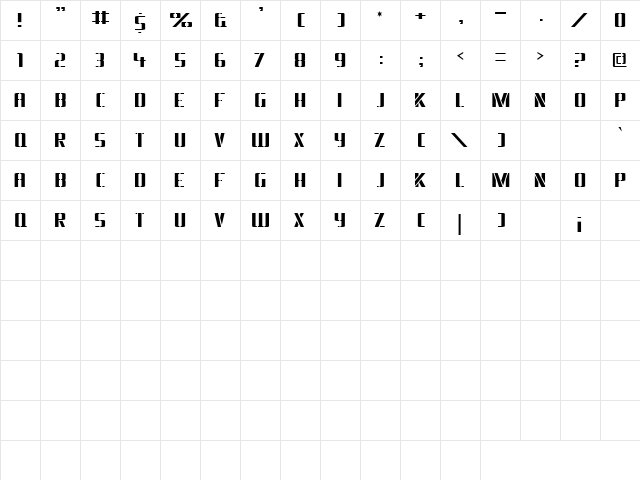
Braeside Lumberboy Regular Font Preview
Braeside Lumberboy Regular
Braeside Lumberboy Regular Font Details
Design Context for Braeside Lumberboy Typeface
Braeside Lumberboy is a composed and adaptable typeface that performs quietly and consistently across a wide range of design contexts.